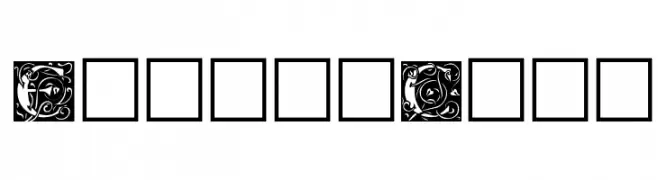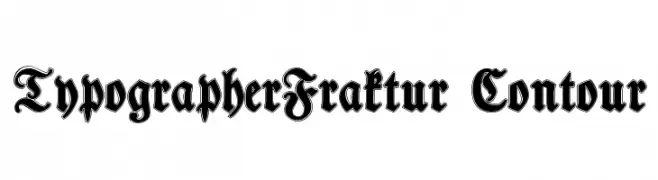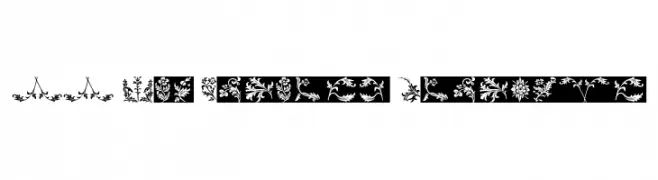
( Fonts by Anke Arnold - www.anke-art.de )
A bold, intricate blackletter font with dramatic strokes and historical flair.
( Fonts by Paul Lloyd )
A bold blackletter font with intricate, ornate letterforms and a historical aesthetic.
( Fonts by David Rakowski )
An ornate, decorative font with intricate floral designs within square frames.
( Fonts by Dieter Steffmann )
A bold, decorative blackletter font with intricate contours and a gothic style.
( Fonts by Altsys Metamorphosis )
A bold, decorative font with intricate, mythical-inspired designs.